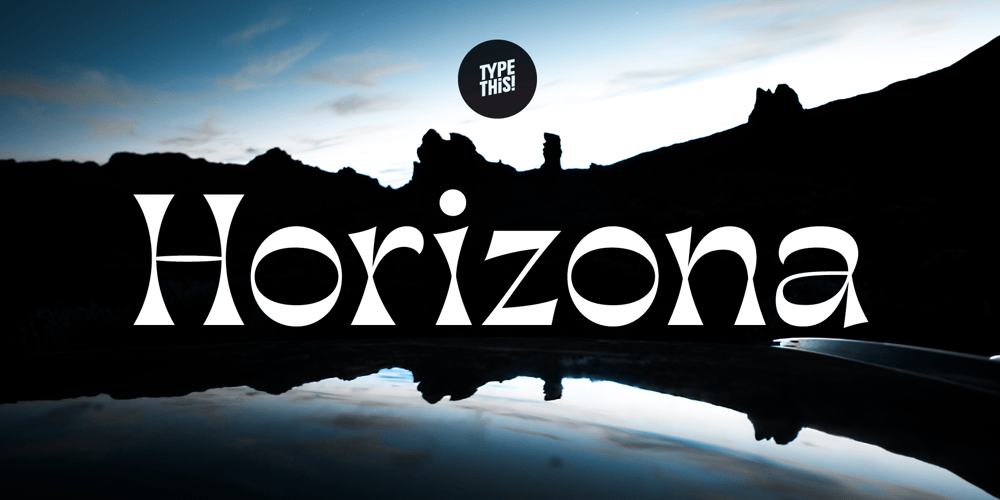
Horizona Font Family was designed by Anita Jürgeleit and published by TypeThis!Studio. Horizona contains 9 styles and family package options. Each iteration of Horizona is carefully designed to maintain consistency and the aesthetic integrity of this font. Users can be sure that any symbol they use, and in whatever language, the typeface’s whimsical nature will shine through to provide a polished and stylized finish to their product. From branding to signage, editorial to advertising, or even for personal use, Horizona makes a statement in a huge variety of languages, letters, symbols, and numbers.www.typethis.studio